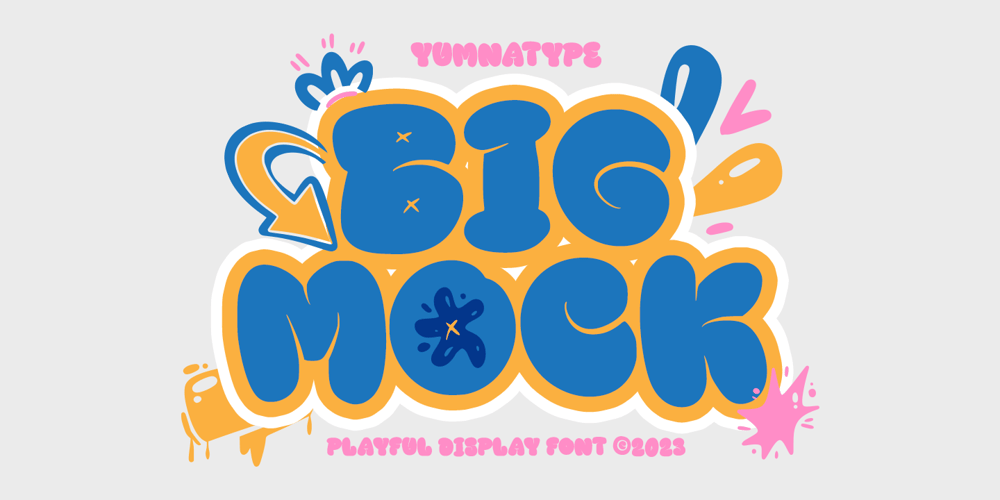
Big Mock Font Family was designed by Donis Miftahudin and published by Yumna Type. Big Mock contains 2 styles and family package options. A font is a crucial element of a design, but it can be a complicated challenge to choose a proper font for your project. An improper design will likely damage your whole designs and make your hard work useless. That is why Big Mock is the perfect font for you.Big Mock is a display font with strong characters and unique styles to assist you to pop up your messages easily. It exists in uppercases and thick weights to show bold, prominent displays. The similar letters’ proportions and the low contrasts will affect the legibility rates. You can use such a font for big text sizes to be greatly legible. Big Mock gives you an extra clipart as a bonus. You can also make use of the available features here.Features: Ligatures Multilingual Supports PUA Encoded Numerals and Punctuations Big Mock fits best for various design projects, such as brandings, posters, banners, headings, magazine covers, quotes, printed products, merchandise, social media, etc. Find out more ways to use this font by taking a look at the font preview.Thanks for purchasing our fonts. Hopefully, you have a great time using our font. Feel free to contact us anytime for further information or when you have trouble with the font. Thanks a lot and happy designing.